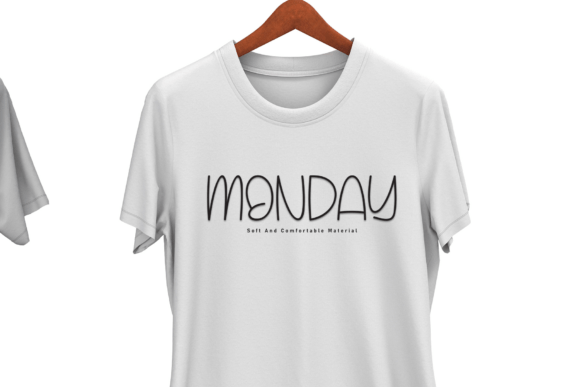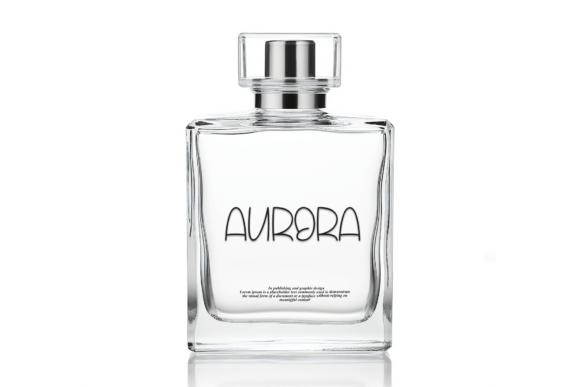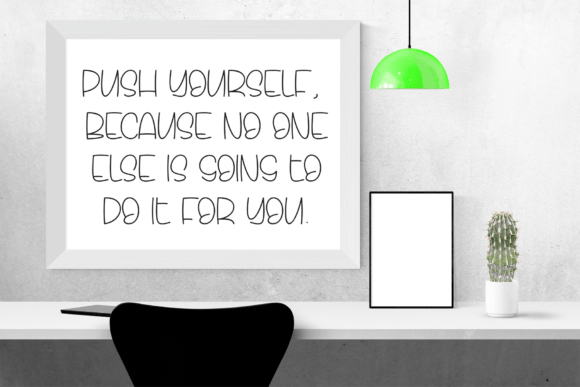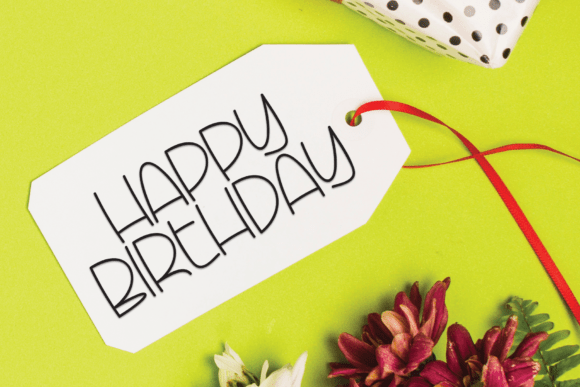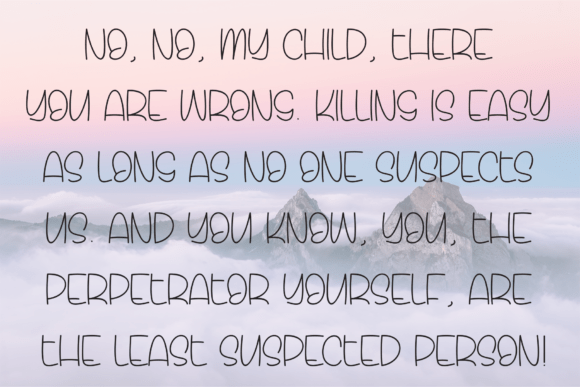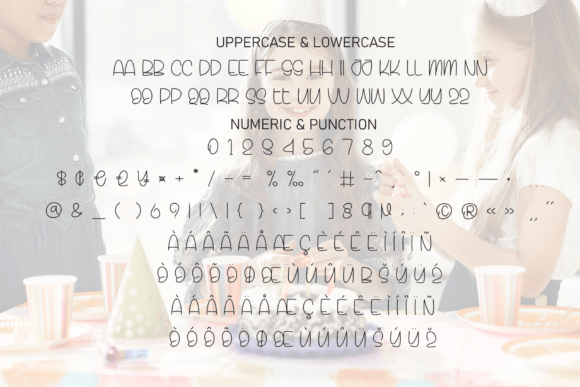
Introducing the Birthday Party Font: Add a Personal Touch to Your Designs
Are you looking for a font that can bring a touch of warmth and whimsy to your designs? Look no further than the Birthday Party Font! This handwritten display font is perfect for adding a personal, heartfelt touch to any project. With its playful strokes and casual flow, it captures the essence of authentic handwriting, making it ideal for a wide range of applications.
Handwritten fonts have a unique charm that can make any design stand out. They add a touch of personality and humanity to a project, making it more relatable and engaging. The Birthday Party Font takes this to the next level with its bold, yet playful strokes. Each letter is carefully crafted to bring a sense of joy and celebration to your designs.
The Birthday Party Font is versatile and can be used for a wide range of projects. Here are a few ideas to get you started:
- Quotes and Greeting Cards: Add a personal touch to your quotes and greeting cards with this beautiful handwritten font. It’s perfect for birthdays, anniversaries, and other special occasions.
- Branding and Logo Design: Use the Birthday Party Font to create a unique and memorable logo for your brand. Its playful and casual flow makes it perfect for modern and trendy brands.
- Crafting and DIY Projects: If you’re a crafter or DIY enthusiast, this font is perfect for adding a personal touch to your projects. Use it to create signs, labels, and other decorative elements.
- Kids’ Party Invitations and Decor: The Birthday Party Font is perfect for kids’ party invitations, decorations, and other party materials. Its playful and whimsical design will add a touch of excitement and fun to any party.
What Makes the Birthday Party Font Special?
So, what makes the Birthday Party Font so special? Here are a few features that set it apart:
- Playful Strokes: The font features playful strokes that give it a lively and energetic feel.
- Casual Flow: The font has a casual flow that makes it perfect for creating a sense of movement and energy in your designs.
- Authentic Handwriting Feel: The font captures the essence of authentic handwriting, making it perfect for adding a personal touch to your designs.
- Legible and Readable: Despite its playful design, the font is legible and readable, making it perfect for use in a variety of contexts.
Tips for Using the Birthday Party Font
Here are a few tips for using the Birthday Party Font in your designs:
- Use it for Headlines and Titles: The font is perfect for headlines and titles, where you want to make a bold statement.
- Experiment with Colors and Textures: Don’t be afraid to experiment with different colors and textures to add depth and interest to your designs.
- Pair it with Other Fonts: The Birthday Party Font pairs well with other fonts, so don’t be afraid to experiment with different combinations.
- Use it to Add a Personal Touch: The font is perfect for adding a personal touch to your designs. Use it to create a sense of warmth and connection with your audience.
The Birthday Party Font is a versatile and charming font that can add a personal touch to any design. With its playful strokes and casual flow, it’s perfect for a wide range of projects, from quotes and greeting cards to branding and logo design. Whether you’re a designer, crafter, or DIY enthusiast, this font is sure to become a favorite in your collection.